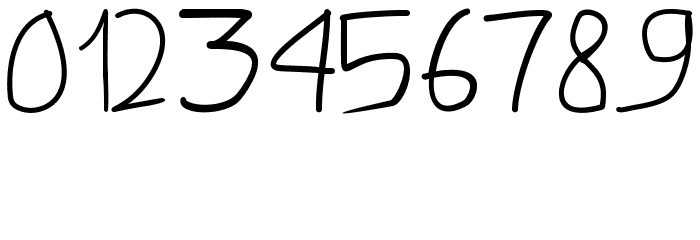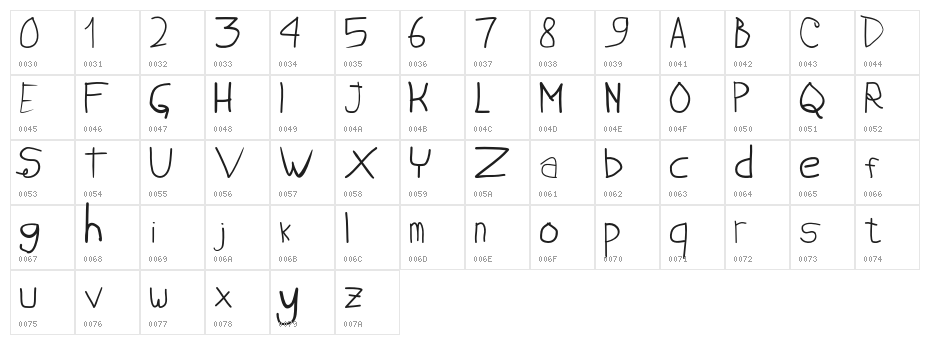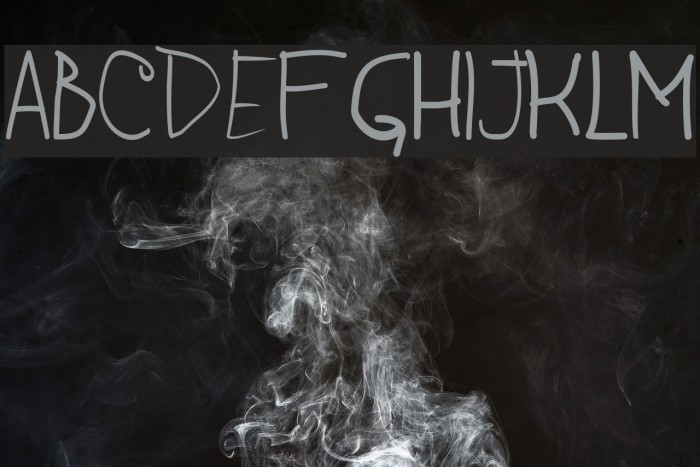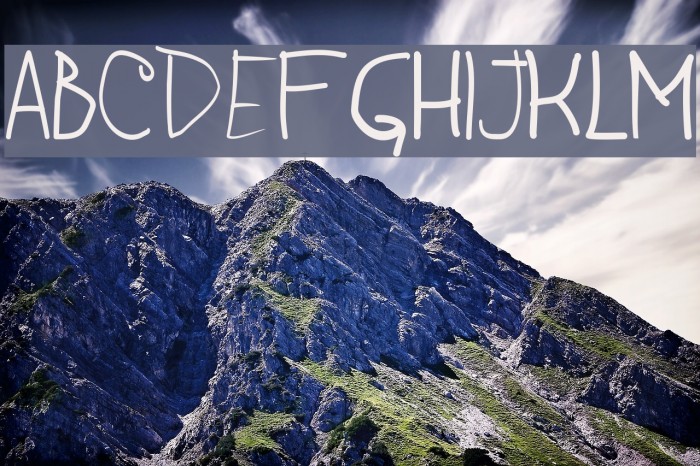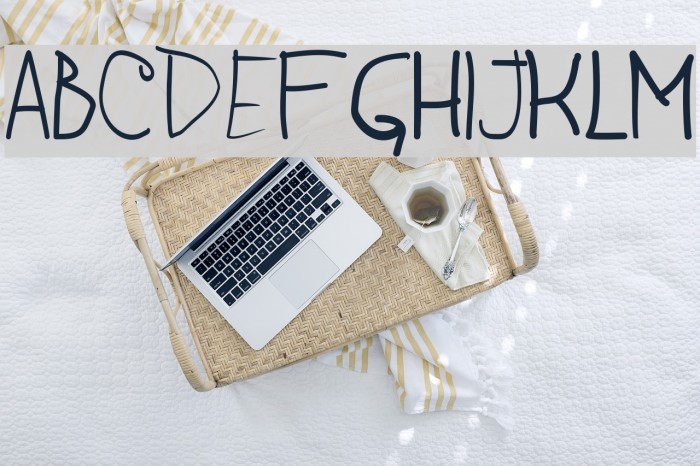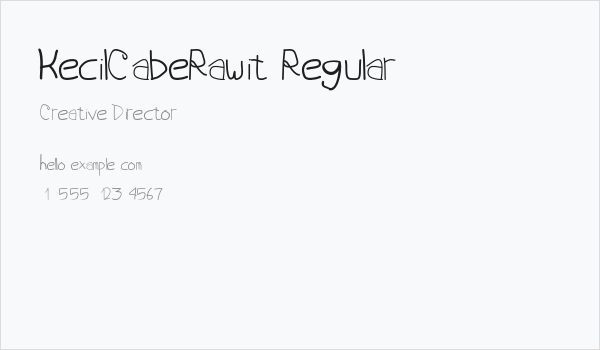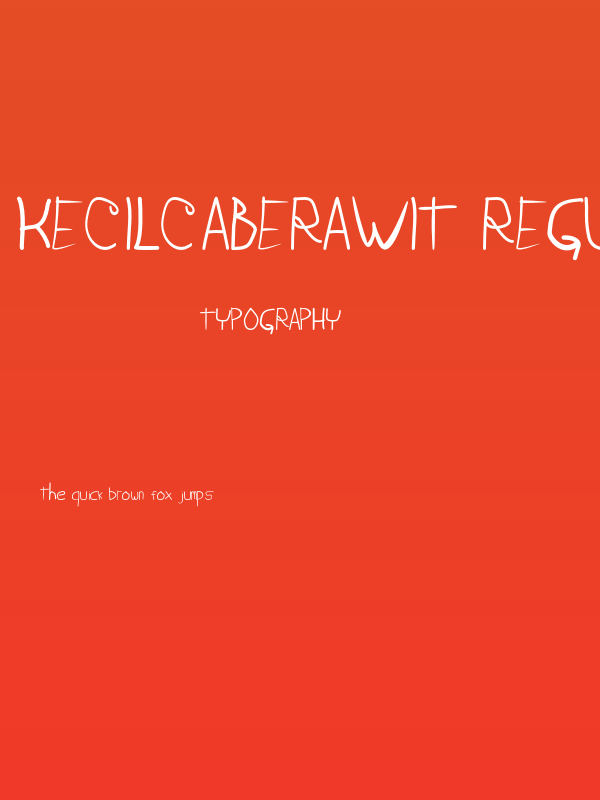
KecilCabeRawit-Regular Font
KecilCabeRawit-Regular Description
This font features a playful and informal handwritten style, characterized by its irregular and whimsical letterforms. The strokes are uneven, giving it a casual and friendly appearance. The uppercase letters are tall and slightly narrow, while the lowercase letters maintain a consistent height, adding to the font's quirky charm. Numbers and special characters follow the same playful design, making it versatile for creative projects. The overall look is dynamic and lively, perfect for adding a personal touch to any design.
Overall StyleCasual
Use CaseHeadlines, Informal text, Creative projects
Proposed ProjectsIdeal for children's books, greeting cards, casual branding, and creative posters.